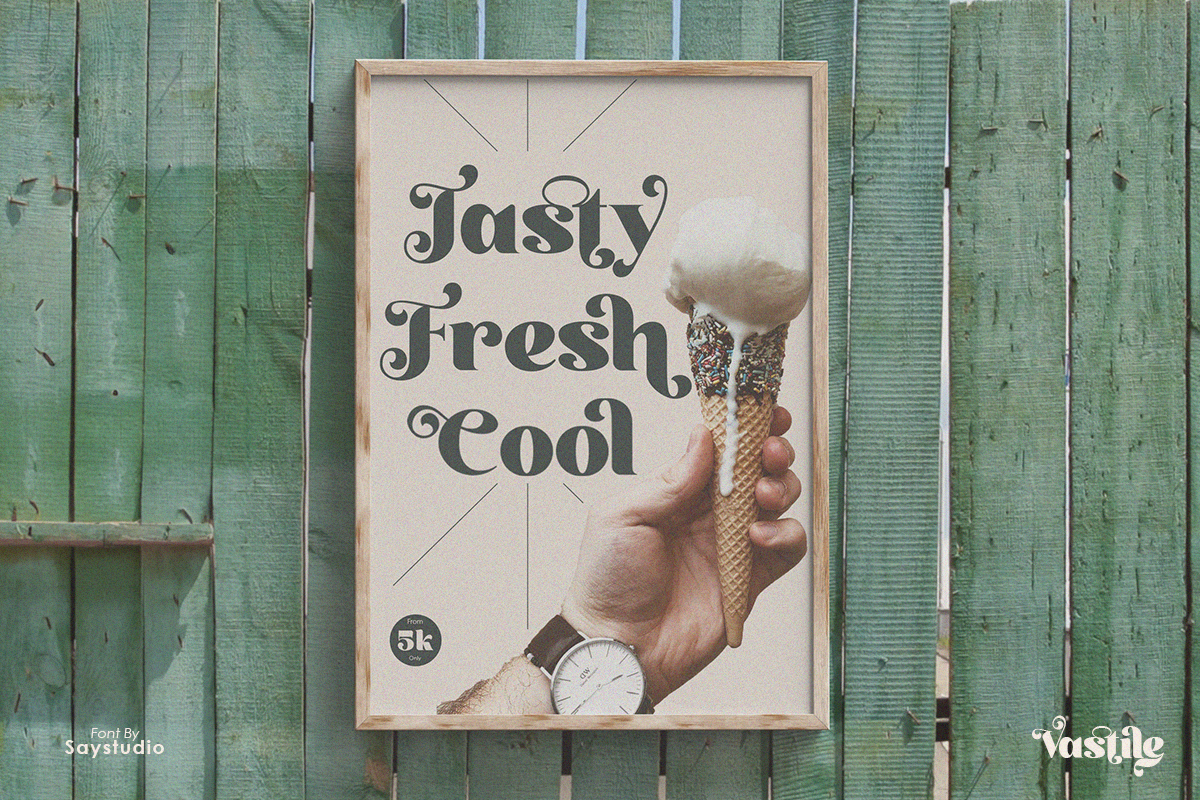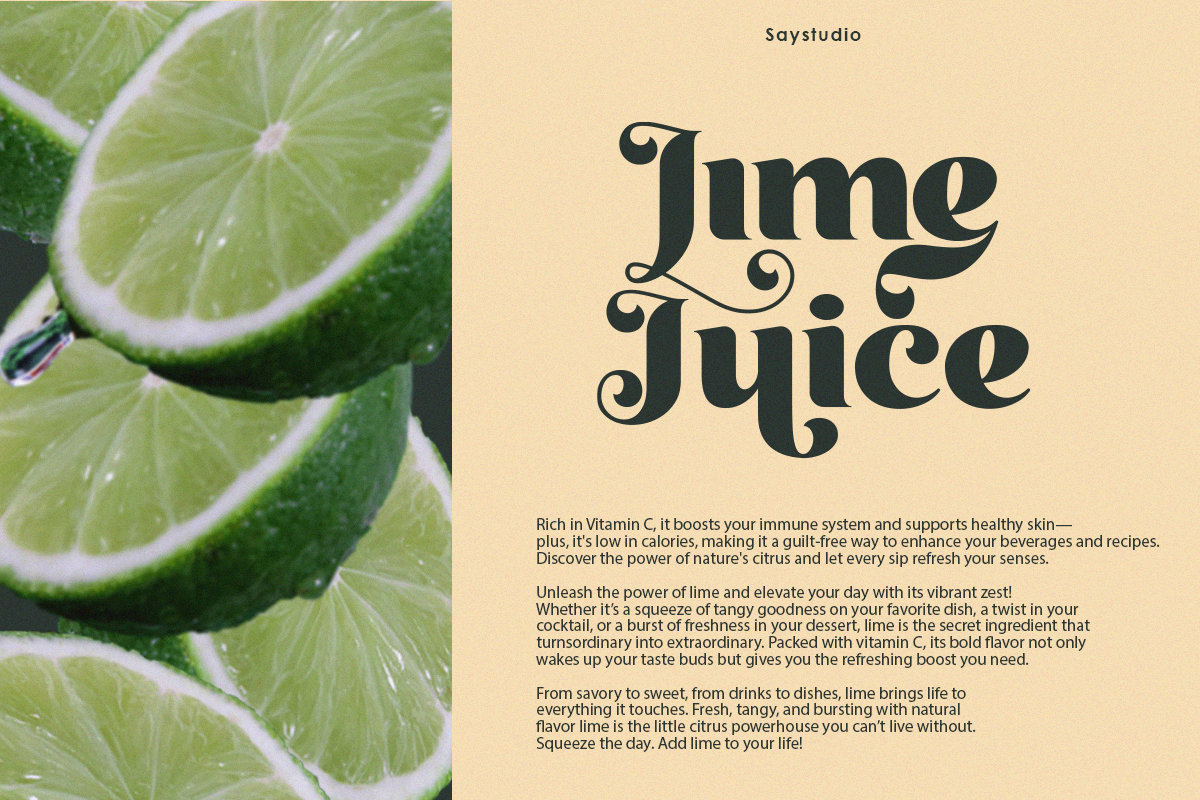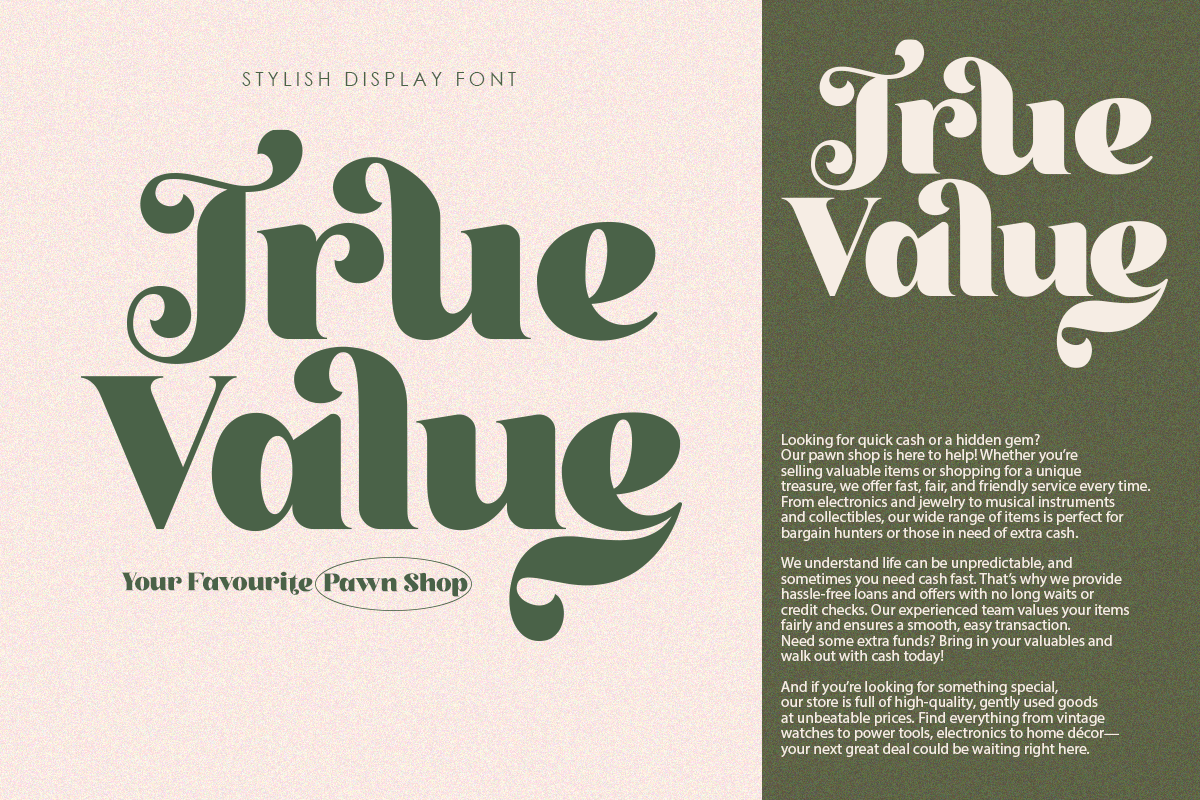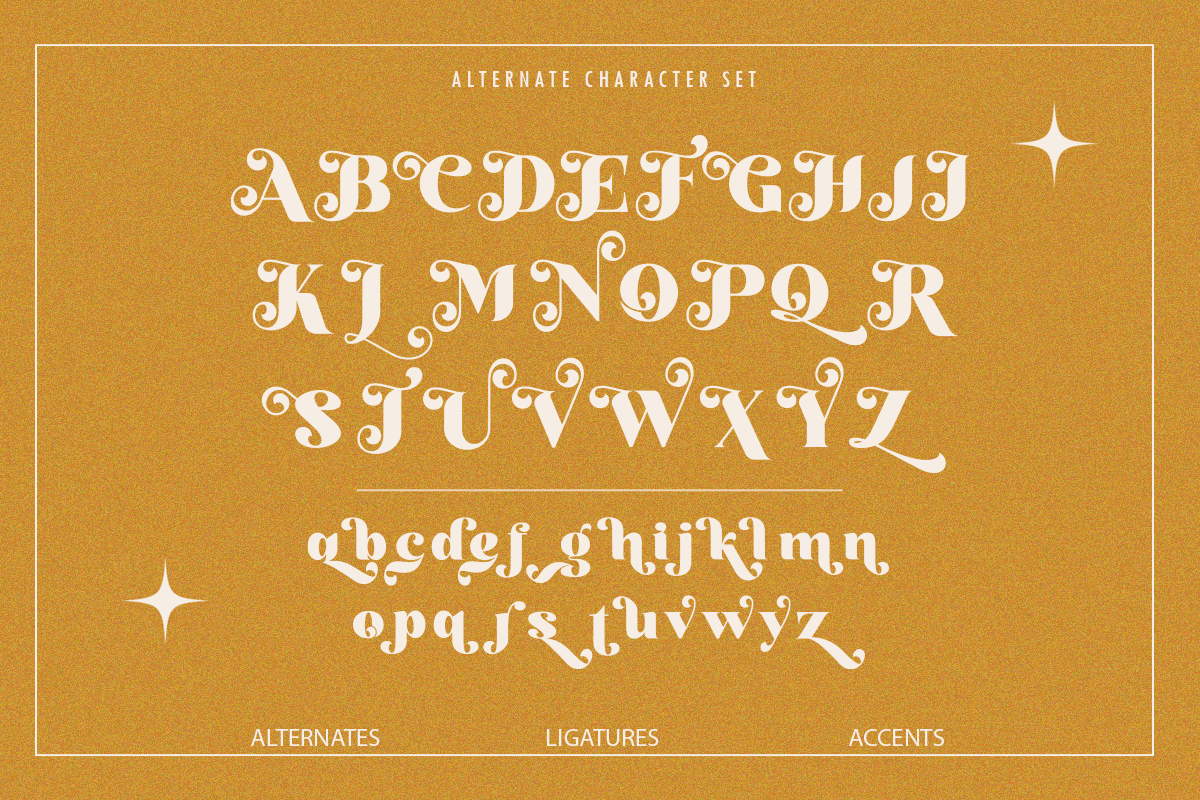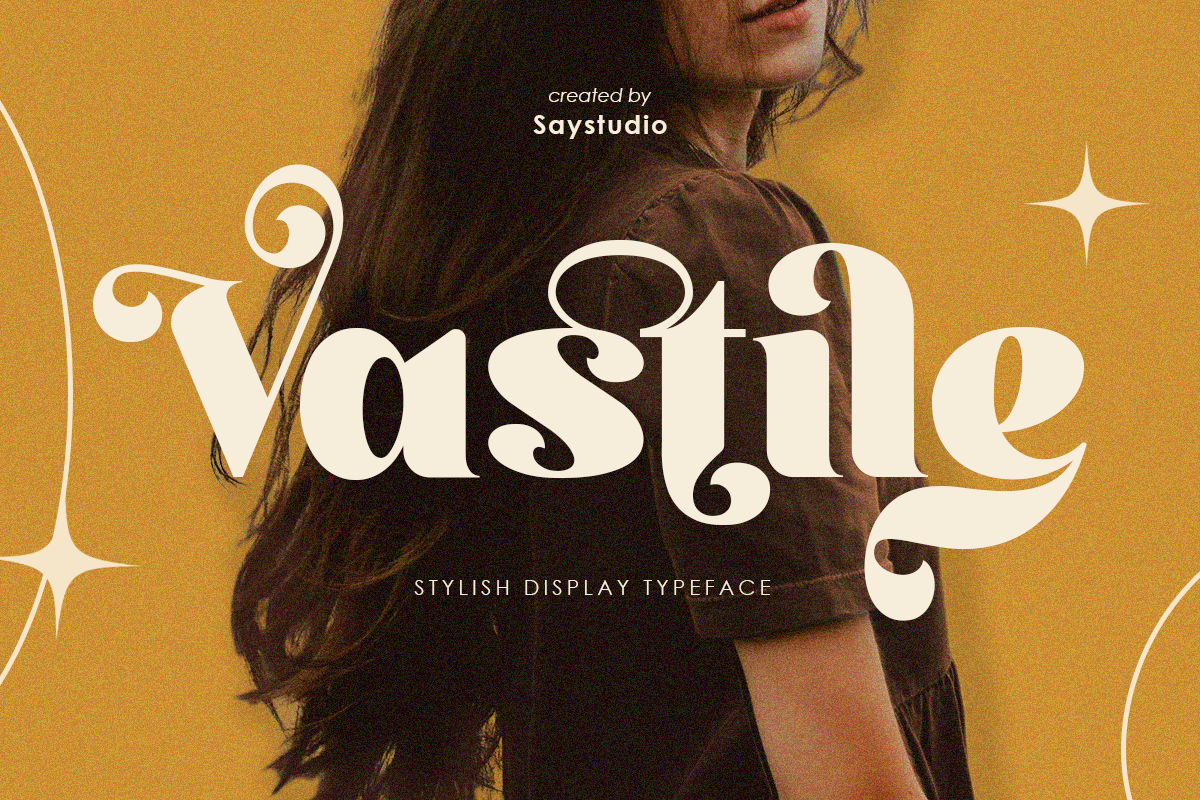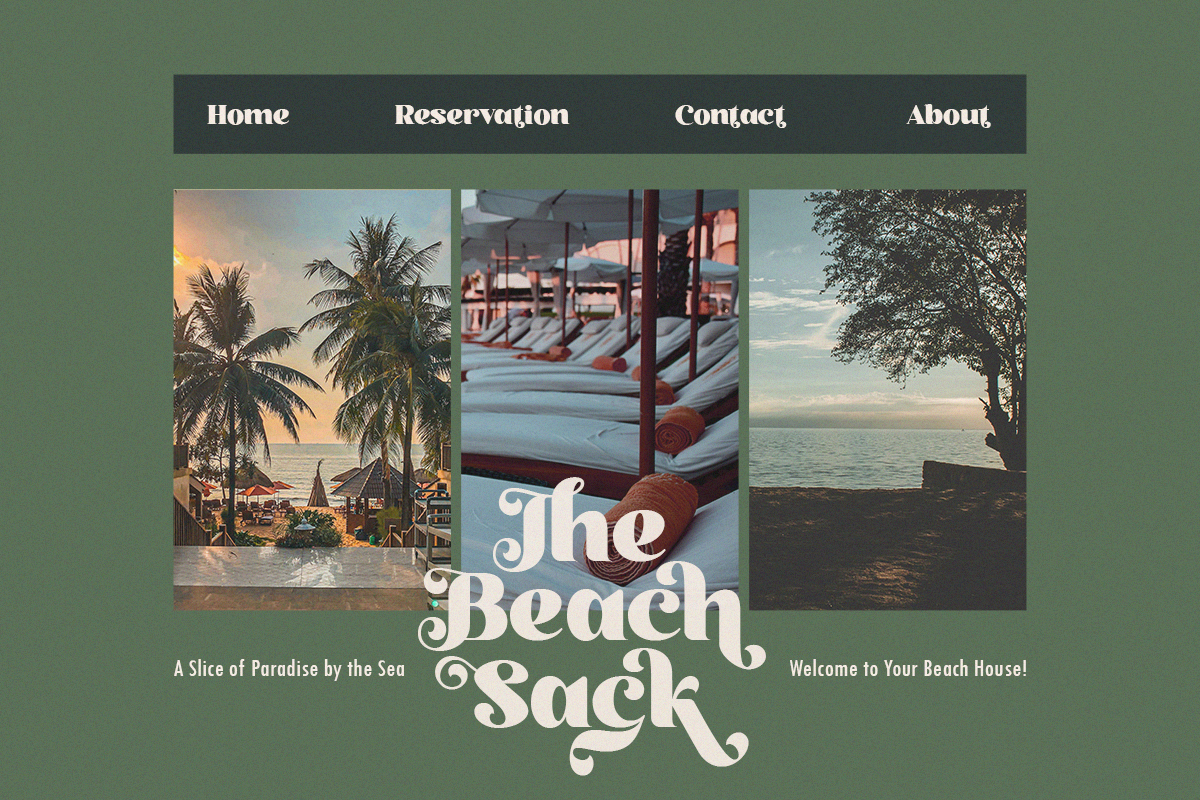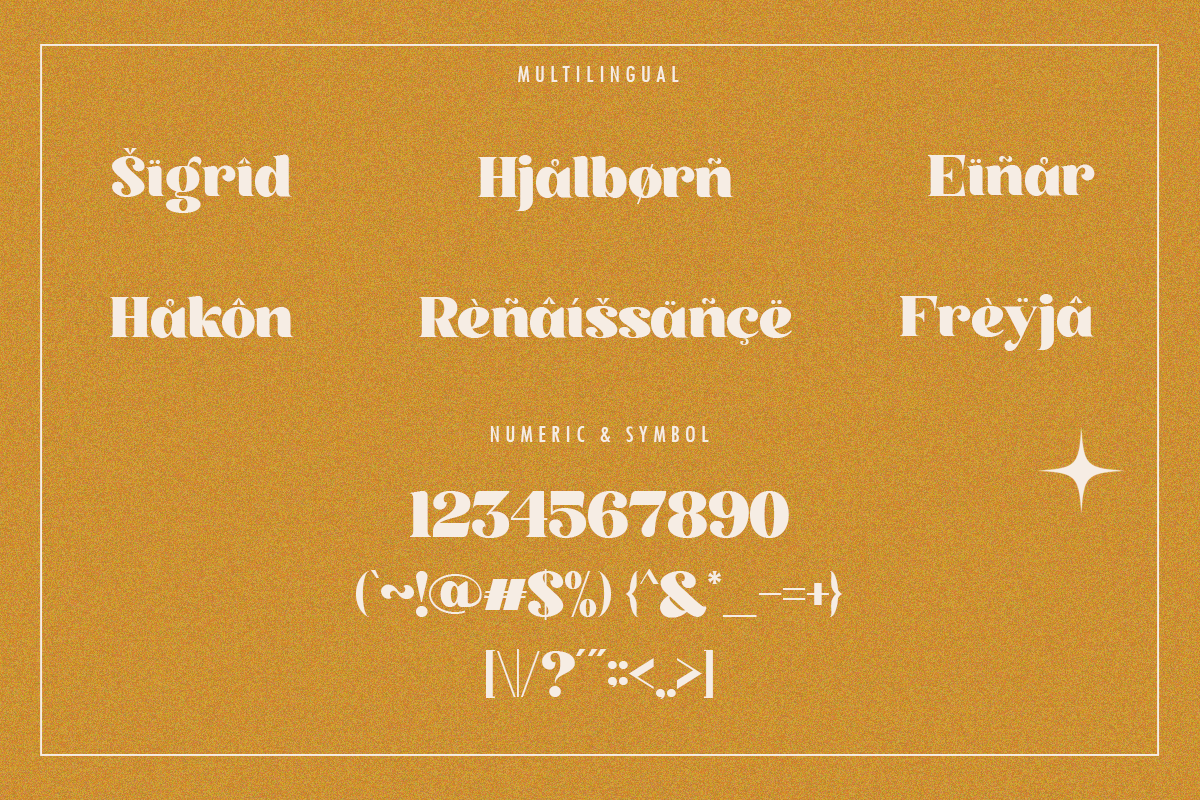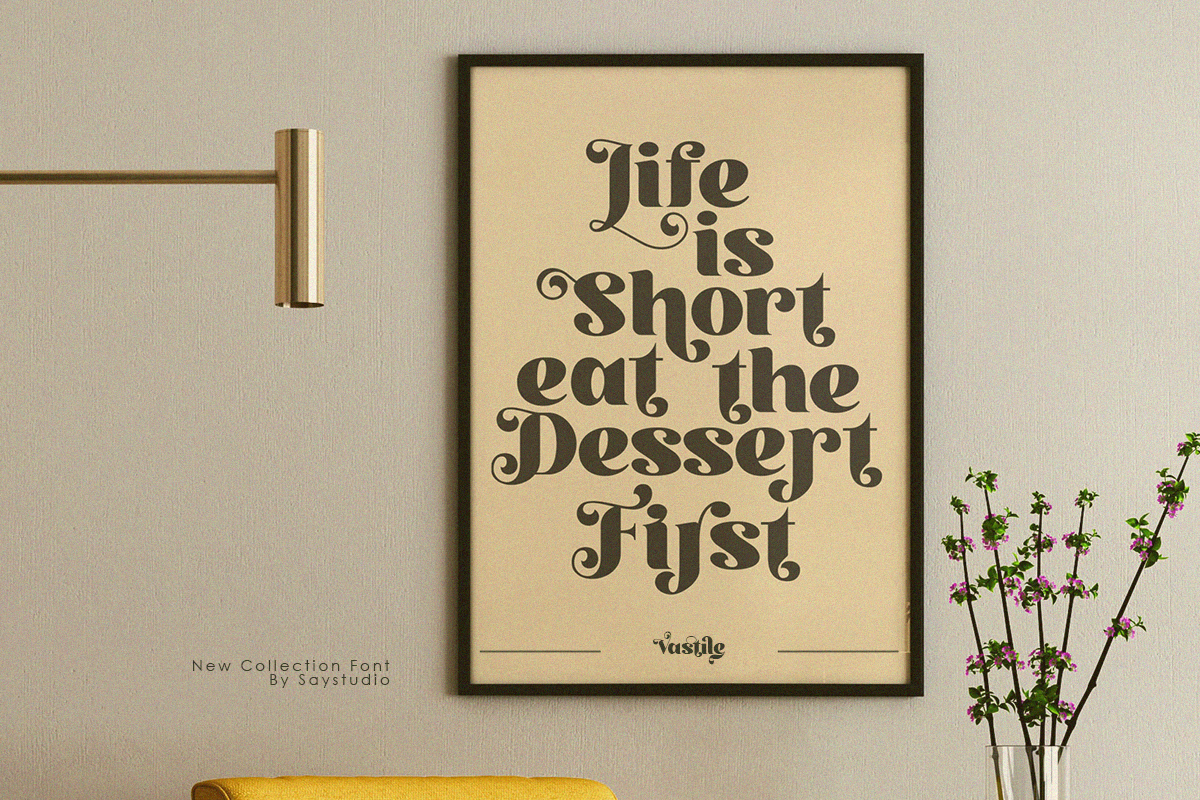
Vastile - Stylish Display Font
Vastile is stylish serif font that blends classic curves with modern flair. Each letter is carefully crafted with ornamental swashes and unique details, making it a perfect choice for designs that seek a touch of sophistication and artistry.
Vastile perfect for high-end branding, editorial layouts, product packaging, or fashion-themed projects, Vastile delivers a striking visual presence that effortlessly captures attention. Its stylish and expressive design makes it ideal for headlines, logos, wedding invitations, boutique labels, and any creative work where beauty and charm are essential. Let Vastile elevate your design with its luxurious character and timeless appeal.
- Alternates Character
- Ligatures Character